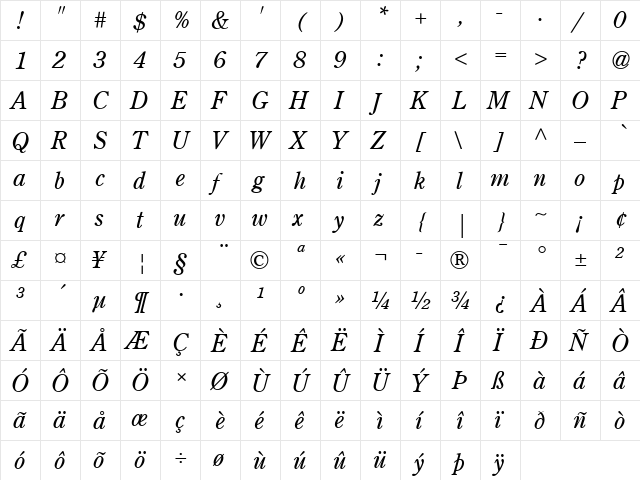
CenturyOldStyle LT Italic Font Preview
Design Context for CenturyOldStyle LT Typeface
CenturyOldStyle LT carries the refined structure of traditional serif typography, with bracketed terminals and considered proportions that communicate credibility and craft. The slanted form adds forward momentum and visual energy. Its slender proportions lend an understated elegance to any composition.
Pro Tip: Set CenturyOldStyle LT at slightly larger body copy sizes than you would a regular-weight serif to compensate for its delicate stroke contrast.